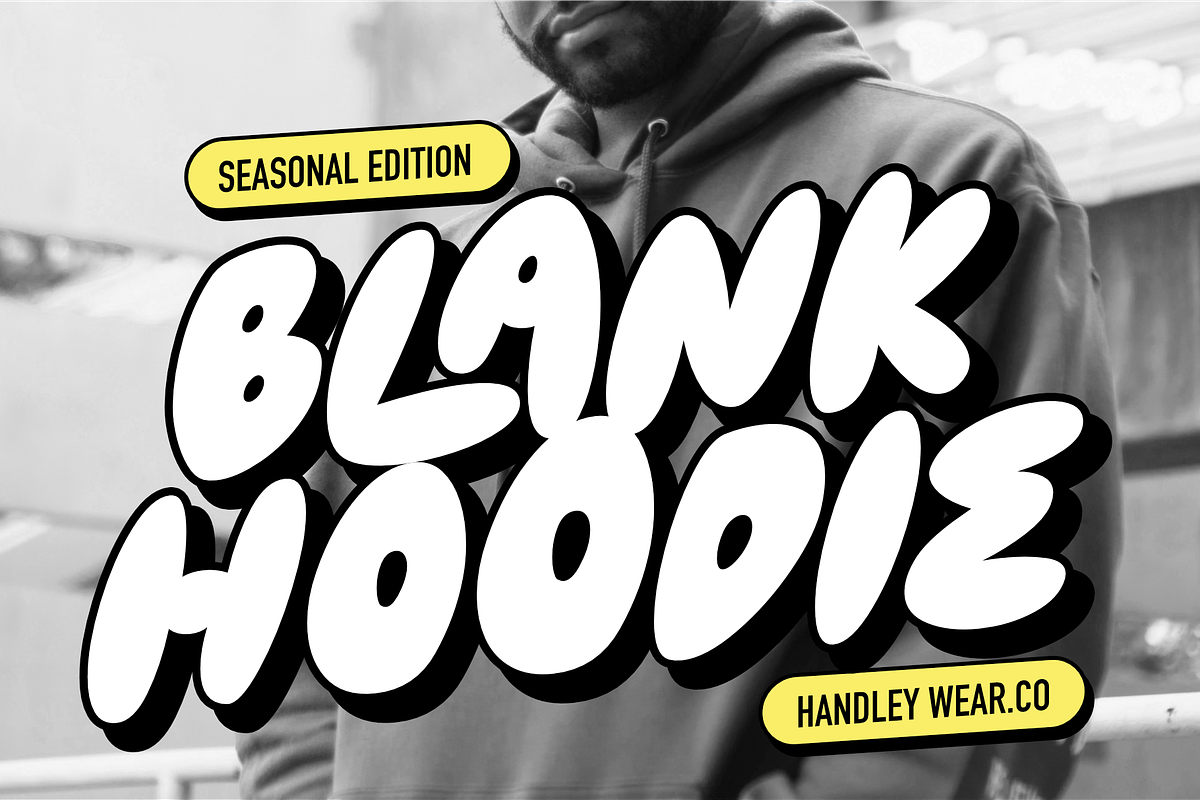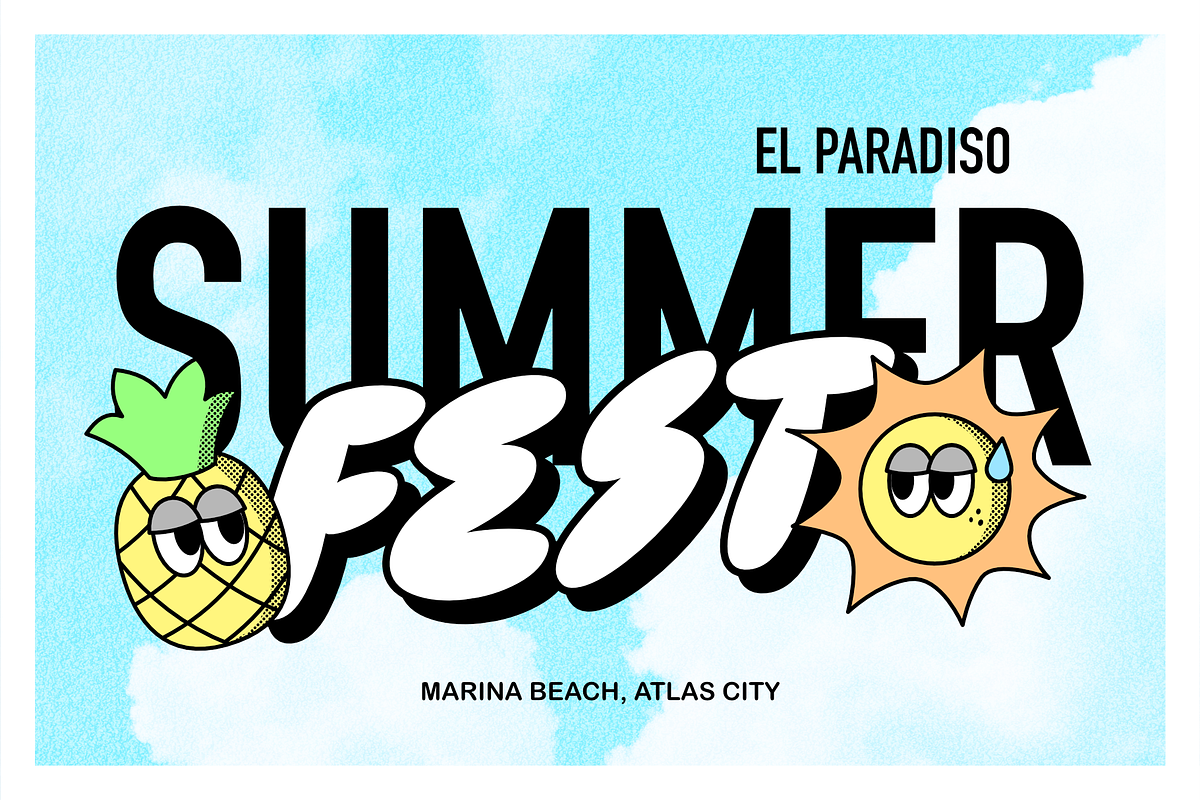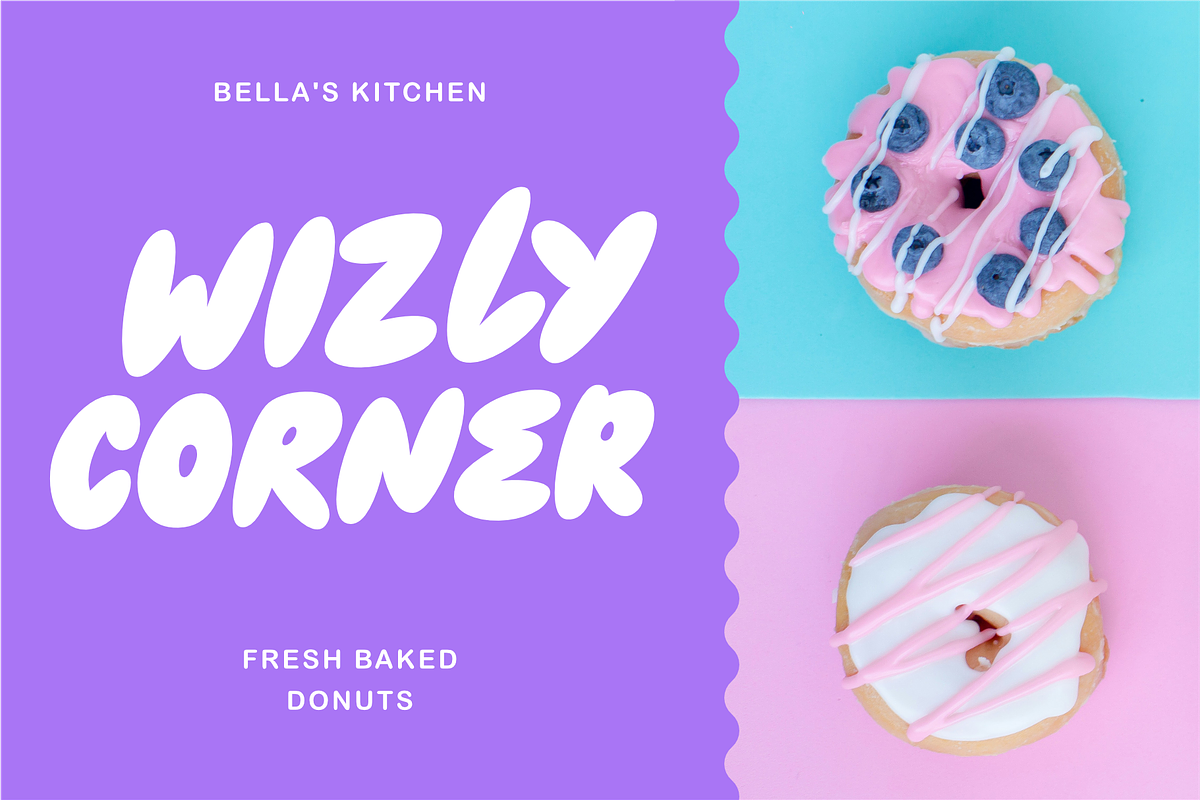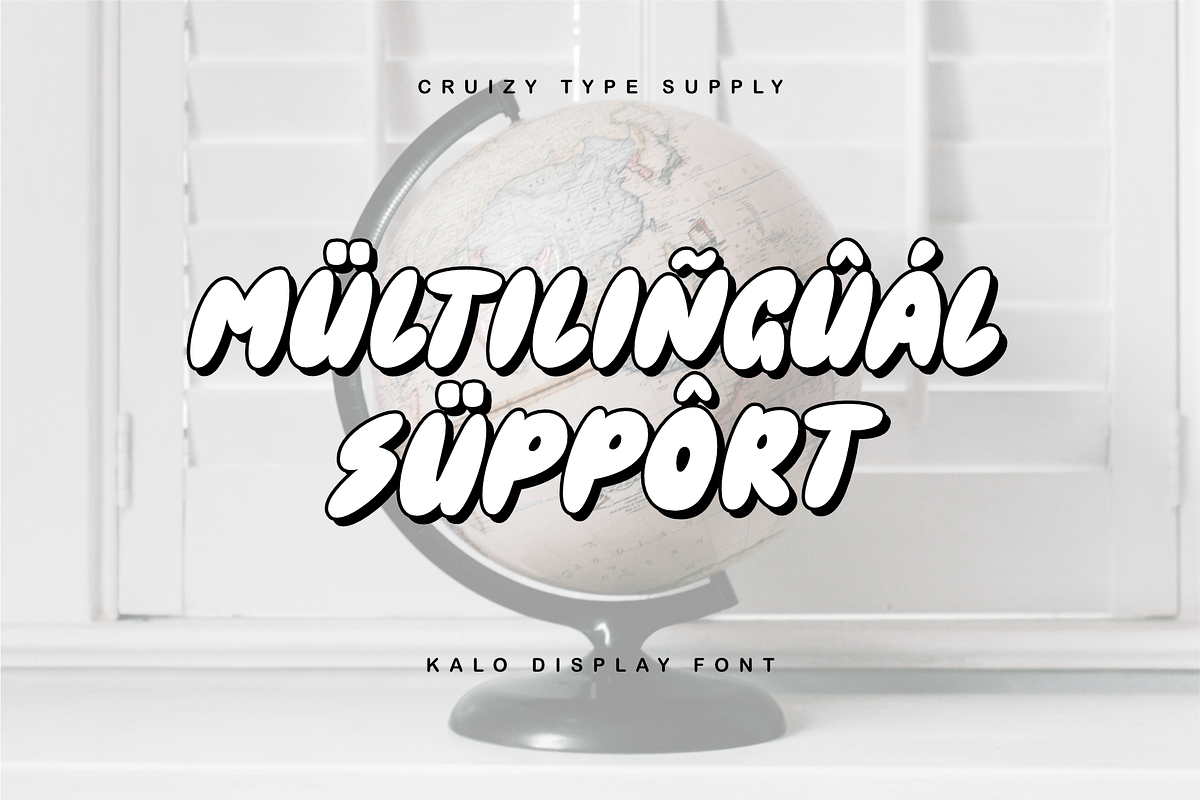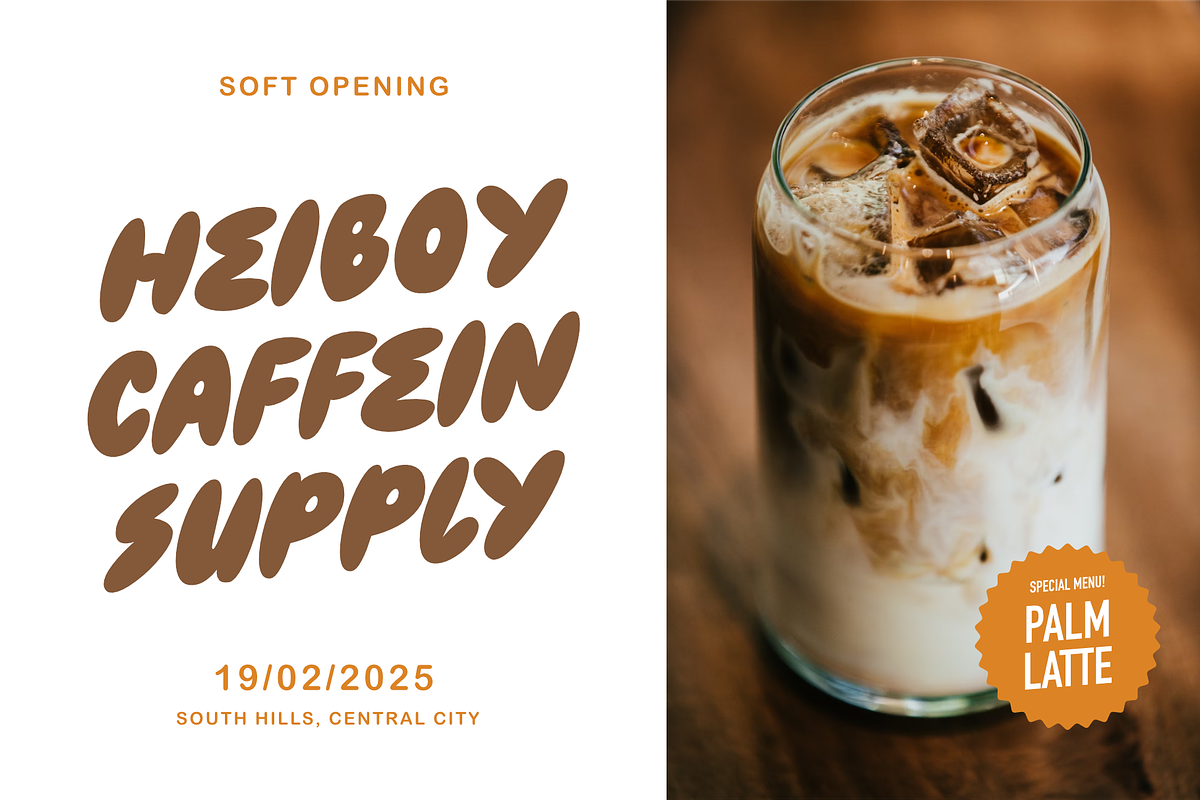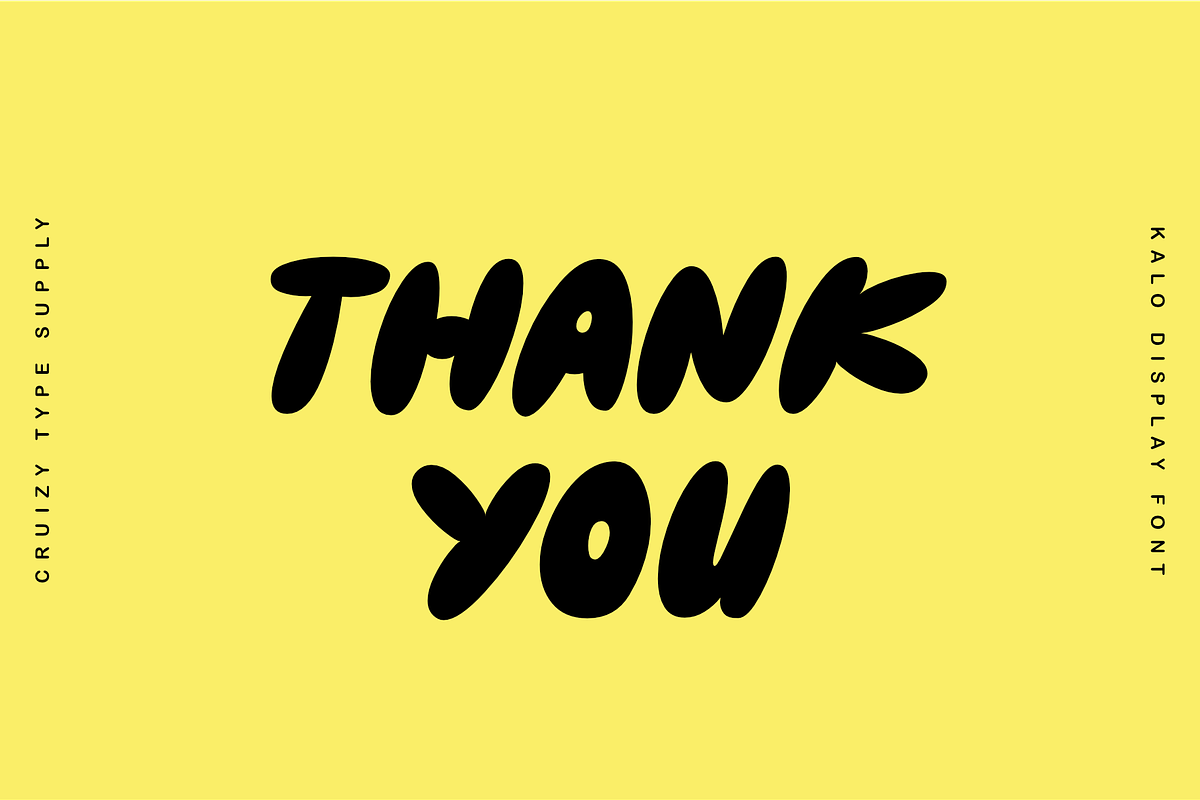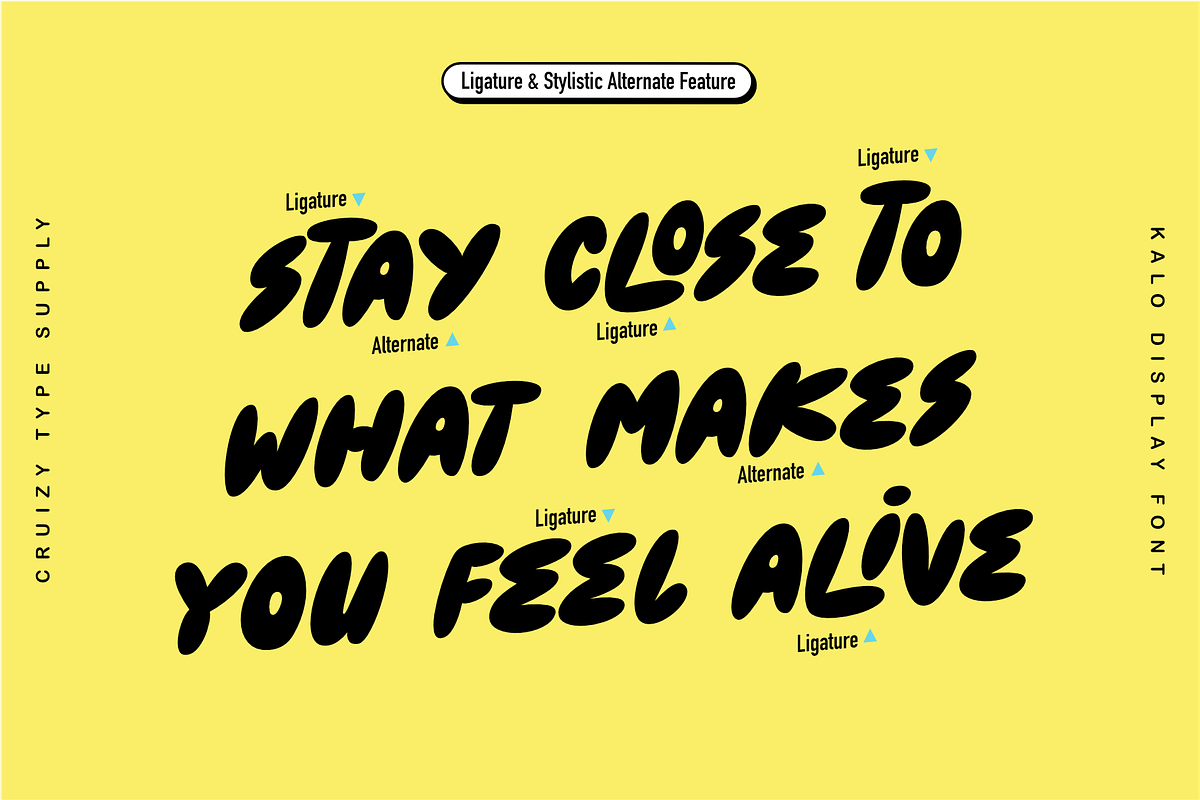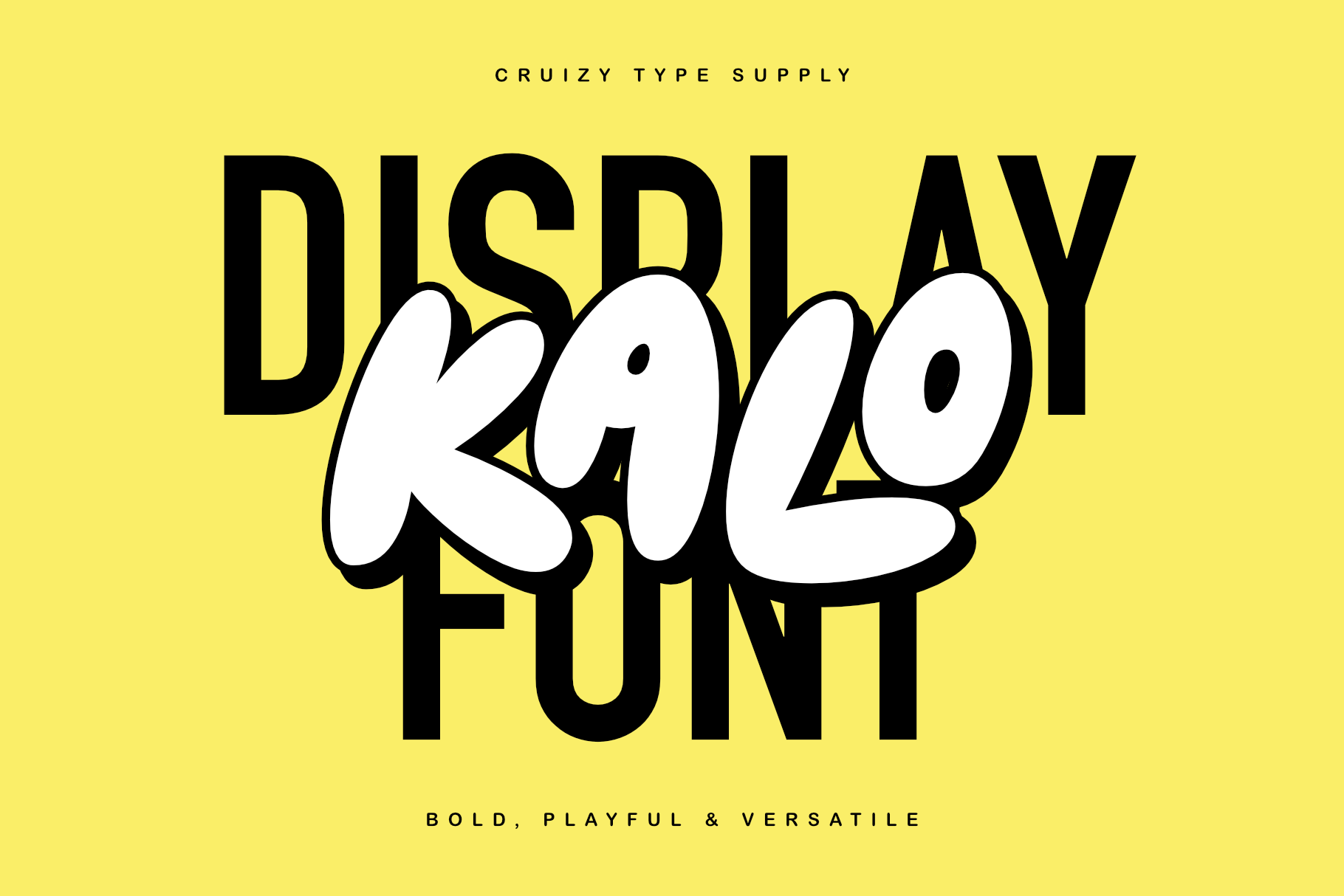
KALO Display Font
Introducing KALO Display Font – Playful, Versatile, and Full of Life!
Inspired by the soft, fluid forms of bubbles, KALO embodies the spirit of adaptability and dynamism. Its smooth edges and lively character make it the perfect choice for a wide range of creative projects—whether it’s food packaging, book covers, stickers, merchandise, or anything that needs a touch of fun and flexibility.
Designed to be both bold and inviting, KALO seamlessly blends playfulness with versatility, making sure your designs stand out while feeling effortlessly natural.
- All-Caps Character
- Symbol, Punctuation & Currency
- Stylistic Alternate